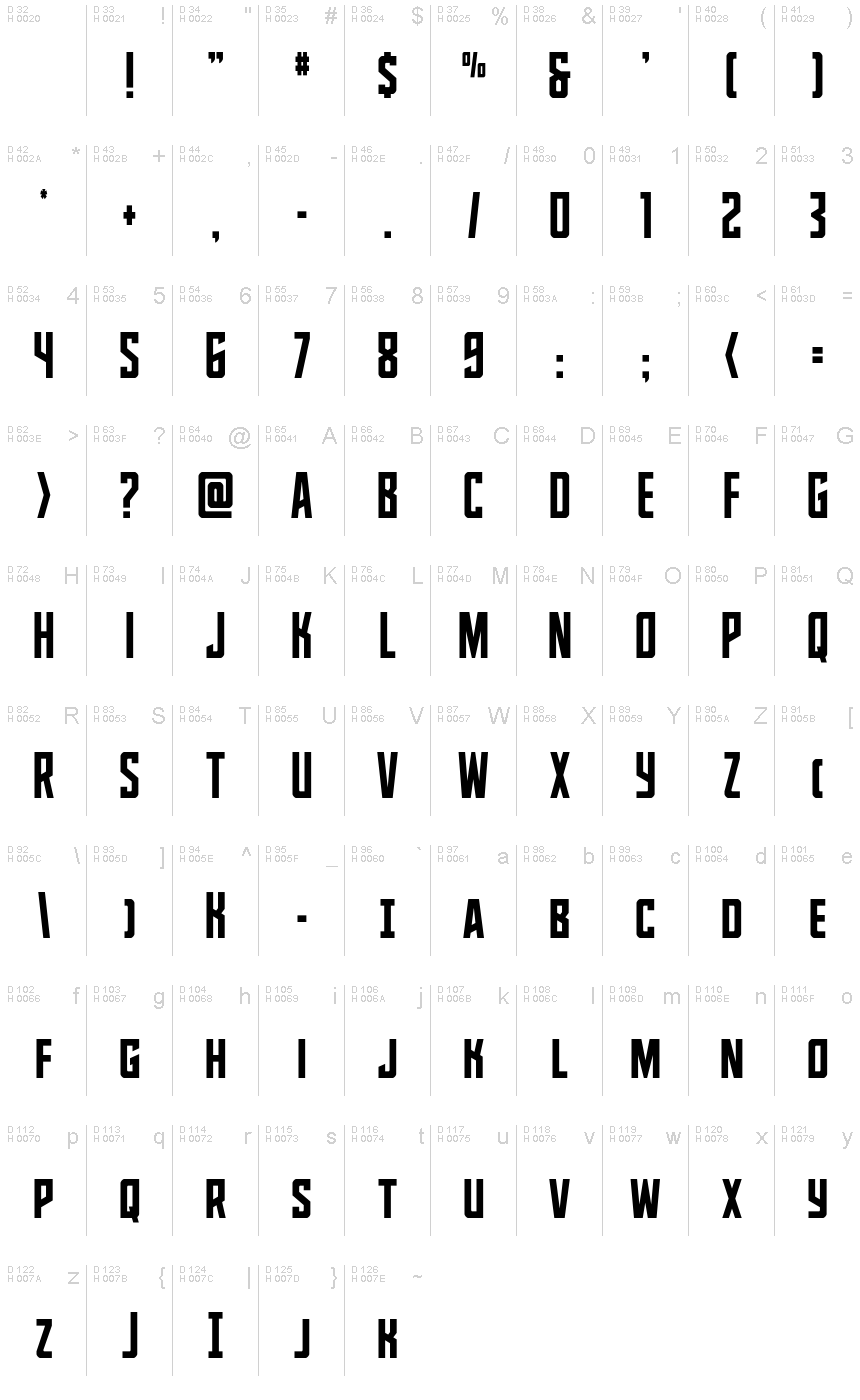
Dynamic Trooper CondenStraight
Dynamic Trooper Condensed Straight emerges as a powerhouse of modernity, crafted by Iconian Fonts. With its condensed and assertive profile, this member of the Dynamic Trooper family exudes an air of sleek efficiency. Its techno style resonates with precision engineering, making it a standout choice for projects that aim to convey strength and innovation.
The commanding presence of this font makes it an ideal contender for impactful headlines and attention-grabbing signage. Moreover, its distinct form ensures legibility even when space is at a premium, positioning it as a versatile asset for branding, tech-themed graphics, and multimedia displays where a contemporary vibe is paramount.